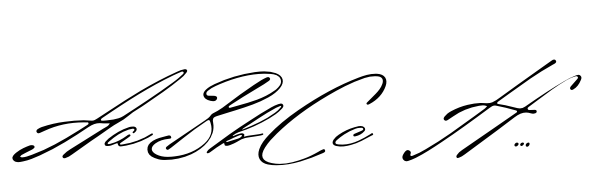
Radiant Horizon
by VP Creative Shop
The Radiant Horizon Font Family was designed by Vladimir Fedotov, Plamen Petrov and published by VP Creative Shop. Radiant Horizon contains 1 styles. More about this family
Introducing Radian Horizon Handwritten Script - Latin and Cyrillic
Radiant Horizon is modern and minimal script loaded with 95 languages support, alternate and ligature glyphs.
FEATURES
• Uppercase, lowercase, numeral, punctuation & Symbol
• ligature glyphs
• alternate glyphs
• Cyrillic support
• Multilingual support - 95 languages
Designers: Vladimir Fedotov, Plamen Petrov
Foundry: VP Creative Shop